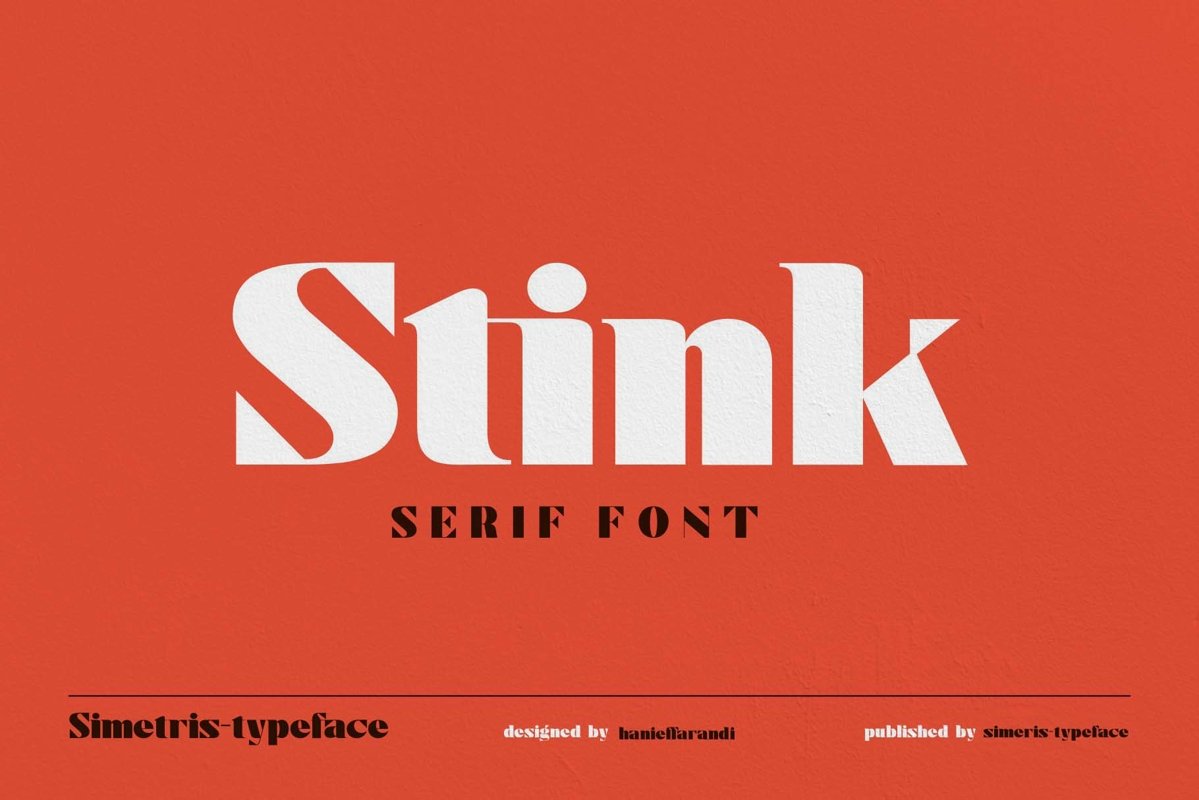
Stink
Introducing the "Stink" font designed elegantly and simply, with a combination of bold, thick, and symmetrical. This font is suitable for your work needs.